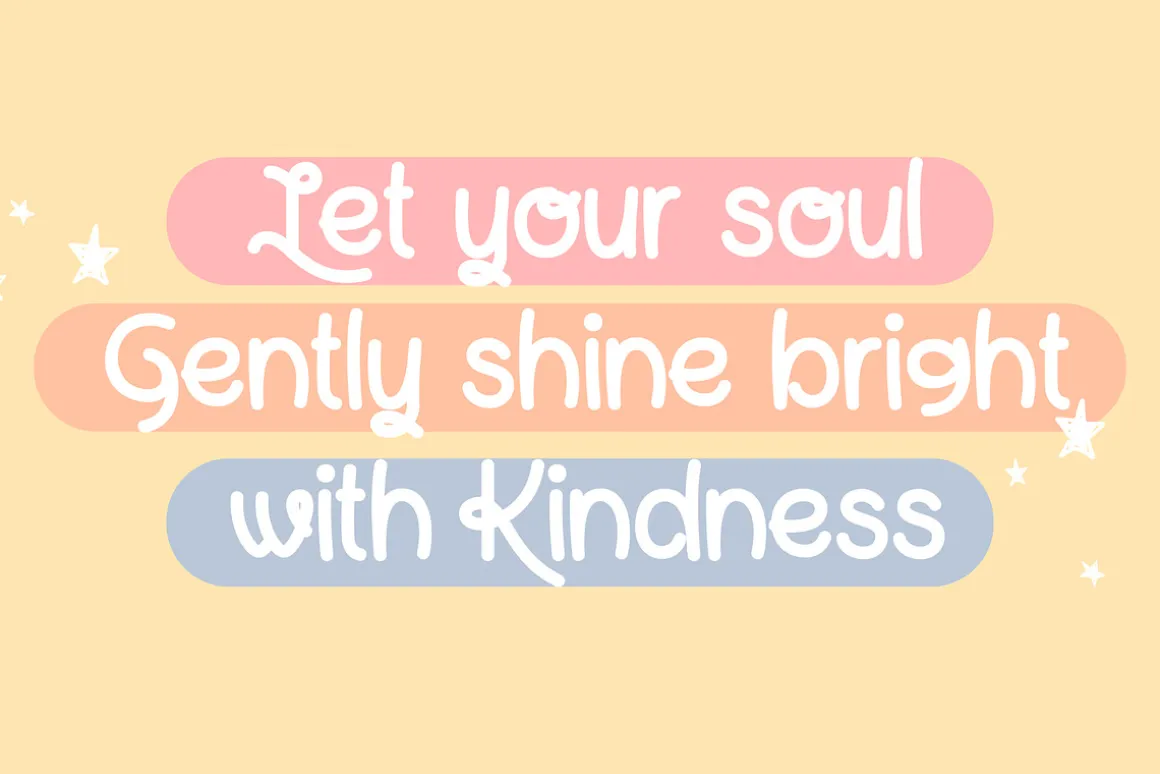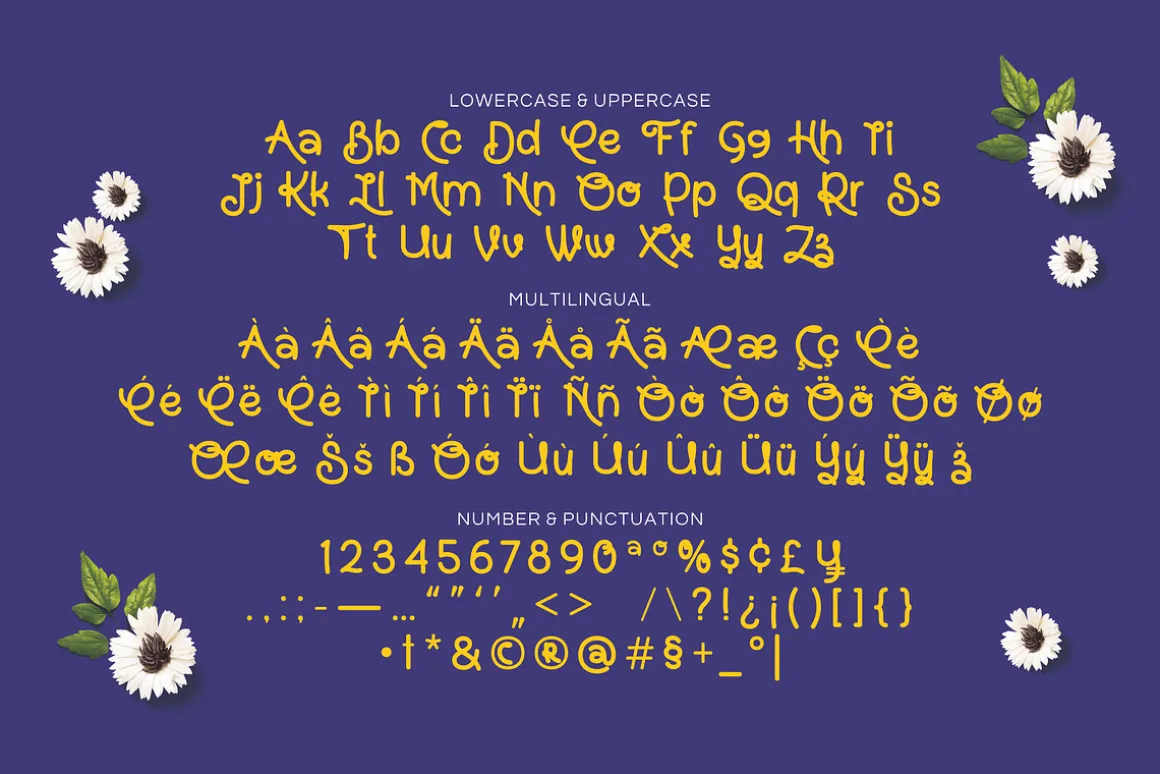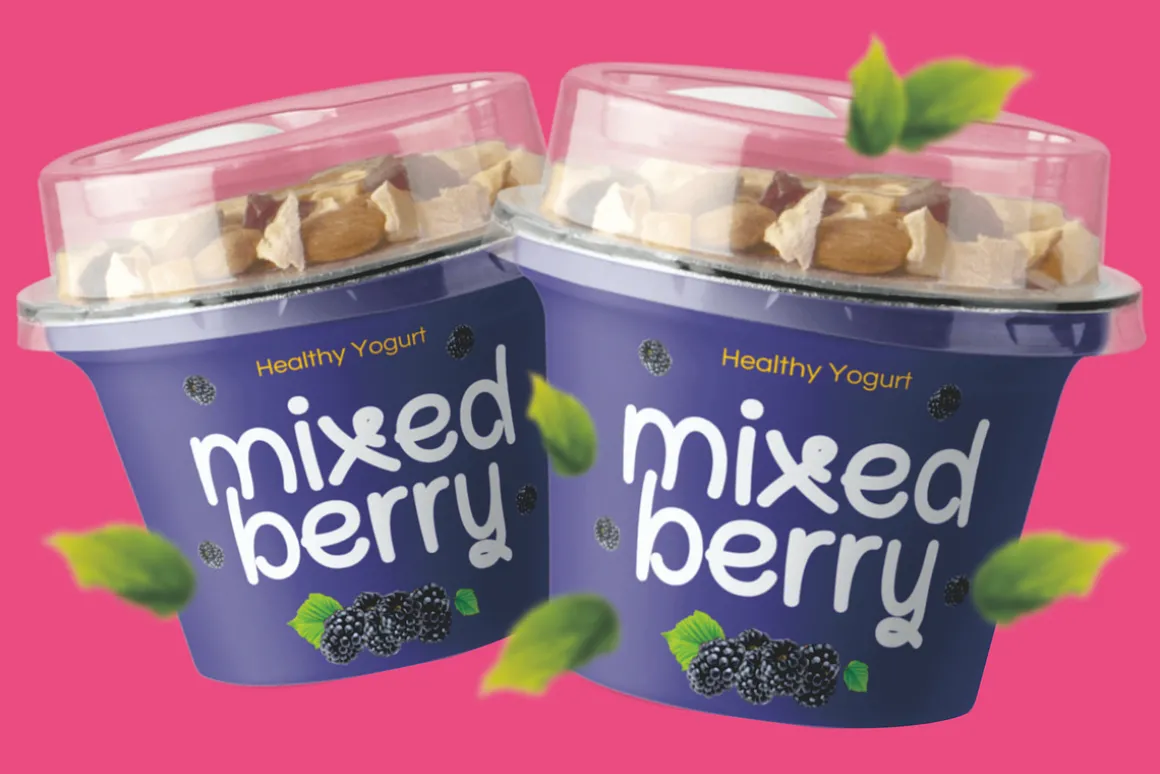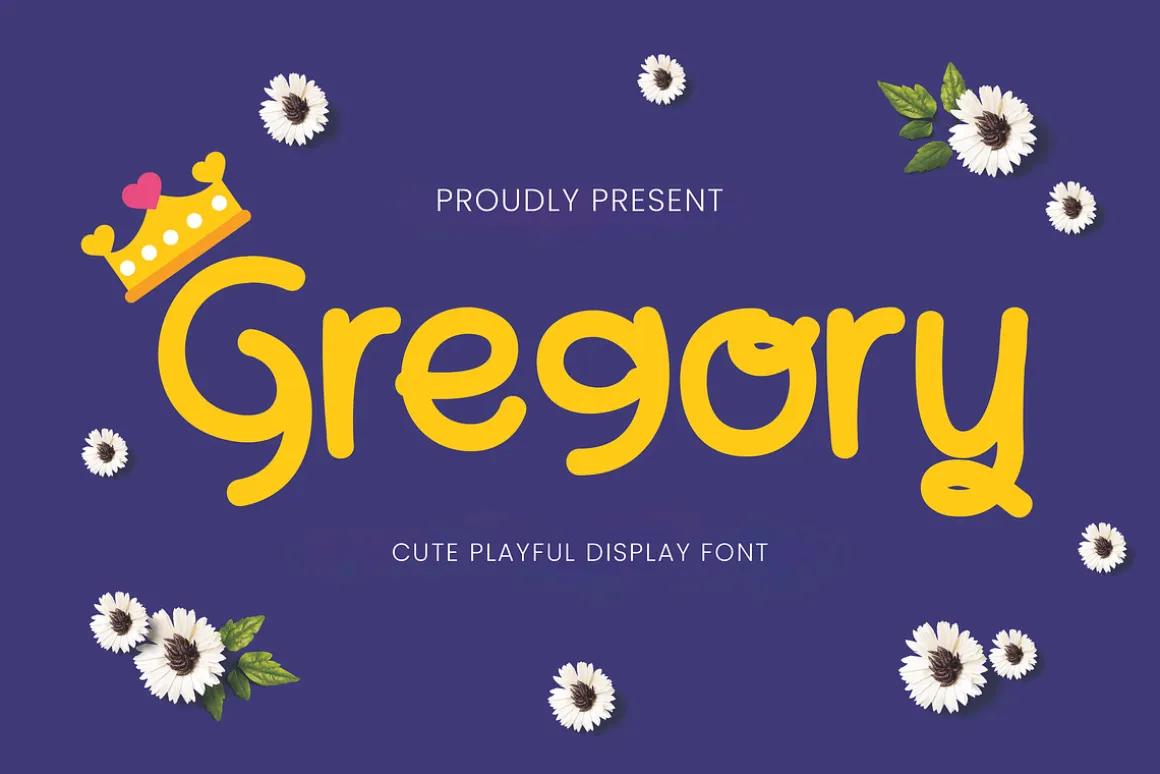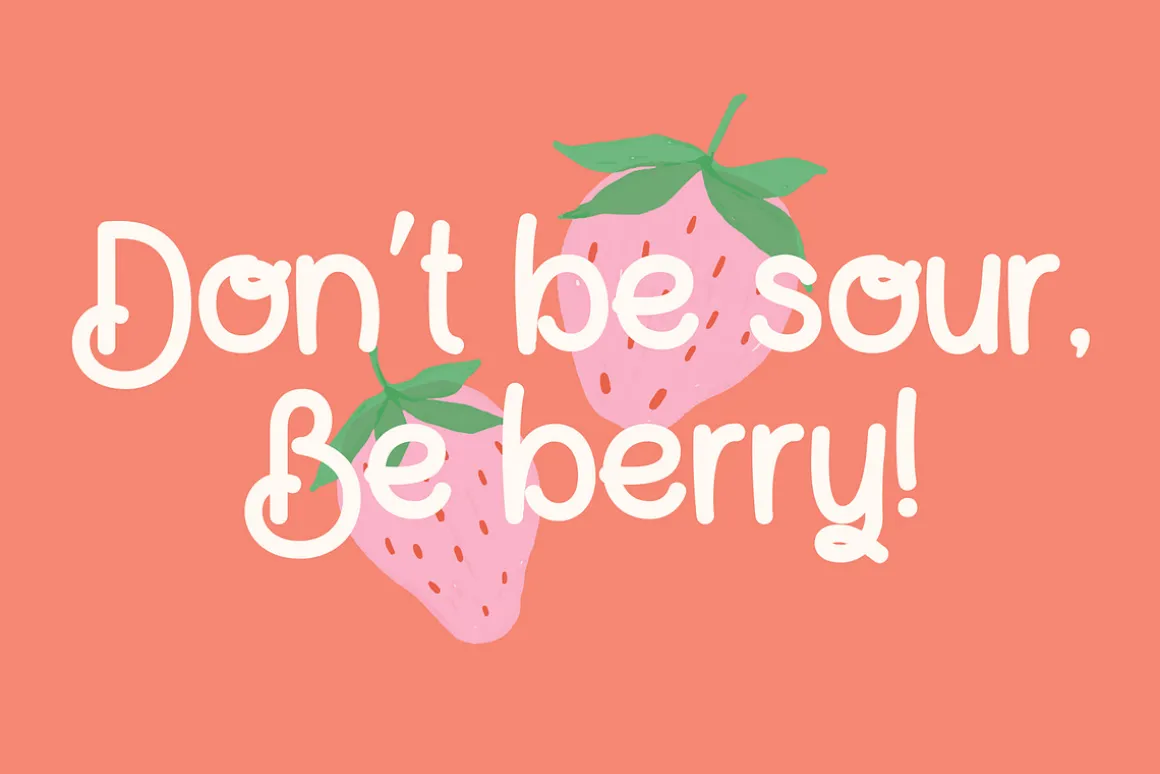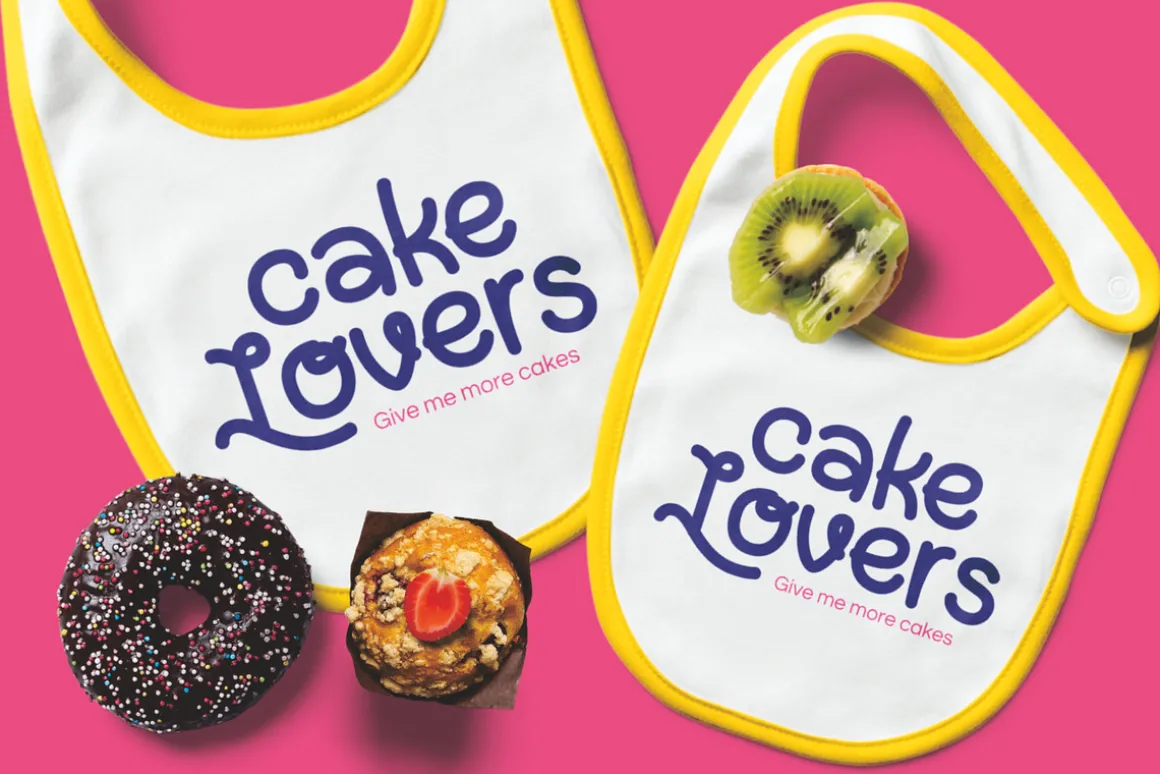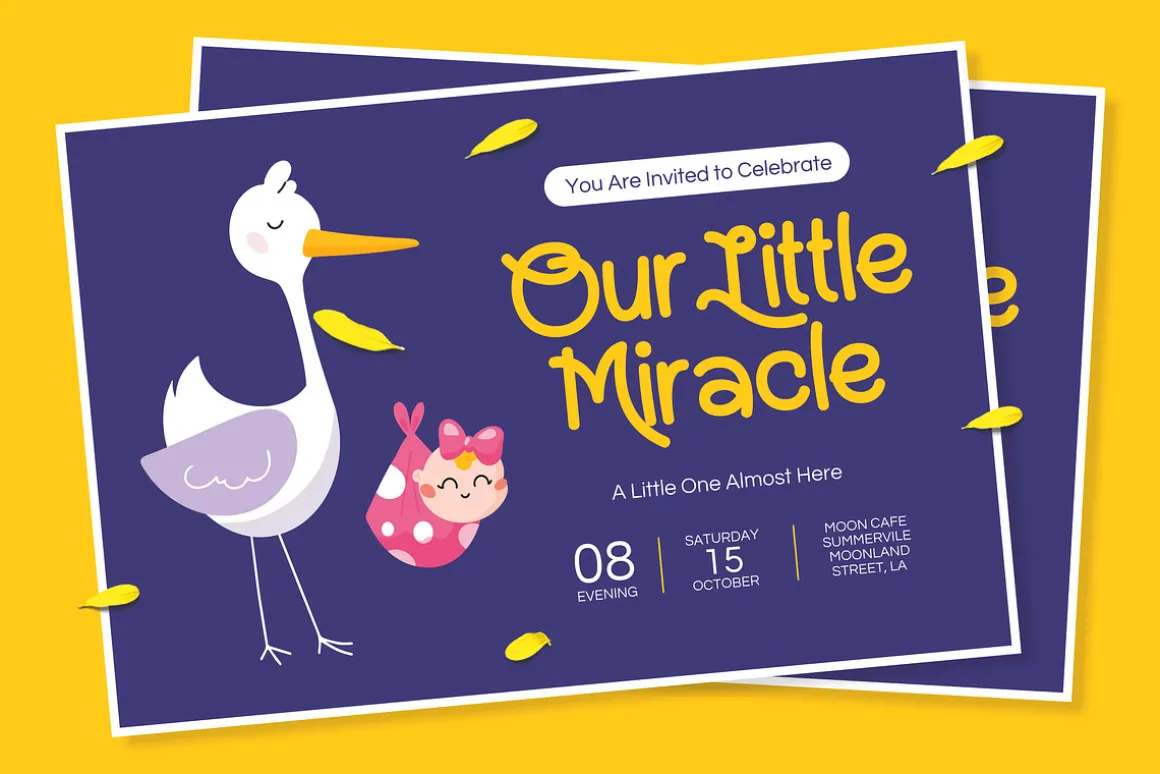
Say hello to Gregory, a delightfully cute and playful display font designed to bring a touch of whimsy and joy to your projects. With its thick, rounded letters and friendly demeanor, Gregory is the perfect choice for projects that need a touch of warmth and playfulness.
Each character is crafted with a soft, consistent stroke, giving it a modern yet approachable feel. Its bouncy, slightly irregular baseline adds a genuine, handcrafted touch that feels both fun and authentic. Whether you’re designing for kids, creating eye catching branding, or crafting cheerful social media posts, Gregory delivers personality in every letter.
This font perfect for headlines, packaging, invitations, and so much more. It’s legible, lovable, and ready to make your creative ideas shine!
Let Gregory add a dose of happy to your next design project!